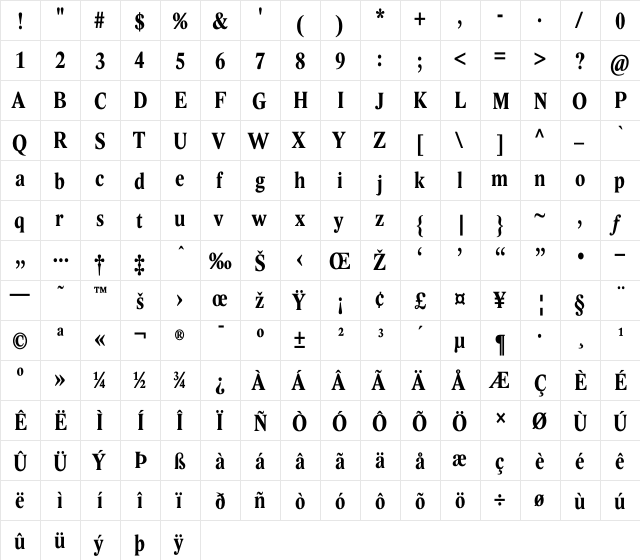
Lido STF CE Cond Bold Font Preview
Lido STF CE Cond Bold
Design Context for Lido STF CE Typeface
Lido STF CE takes a measured approach to typography — its balanced proportions and neutral character make it a reliable workhorse for both digital and print work. The heavy weight commands attention and anchors typographic hierarchies. Its narrow stance lets it pack a punch even in space-constrained designs.